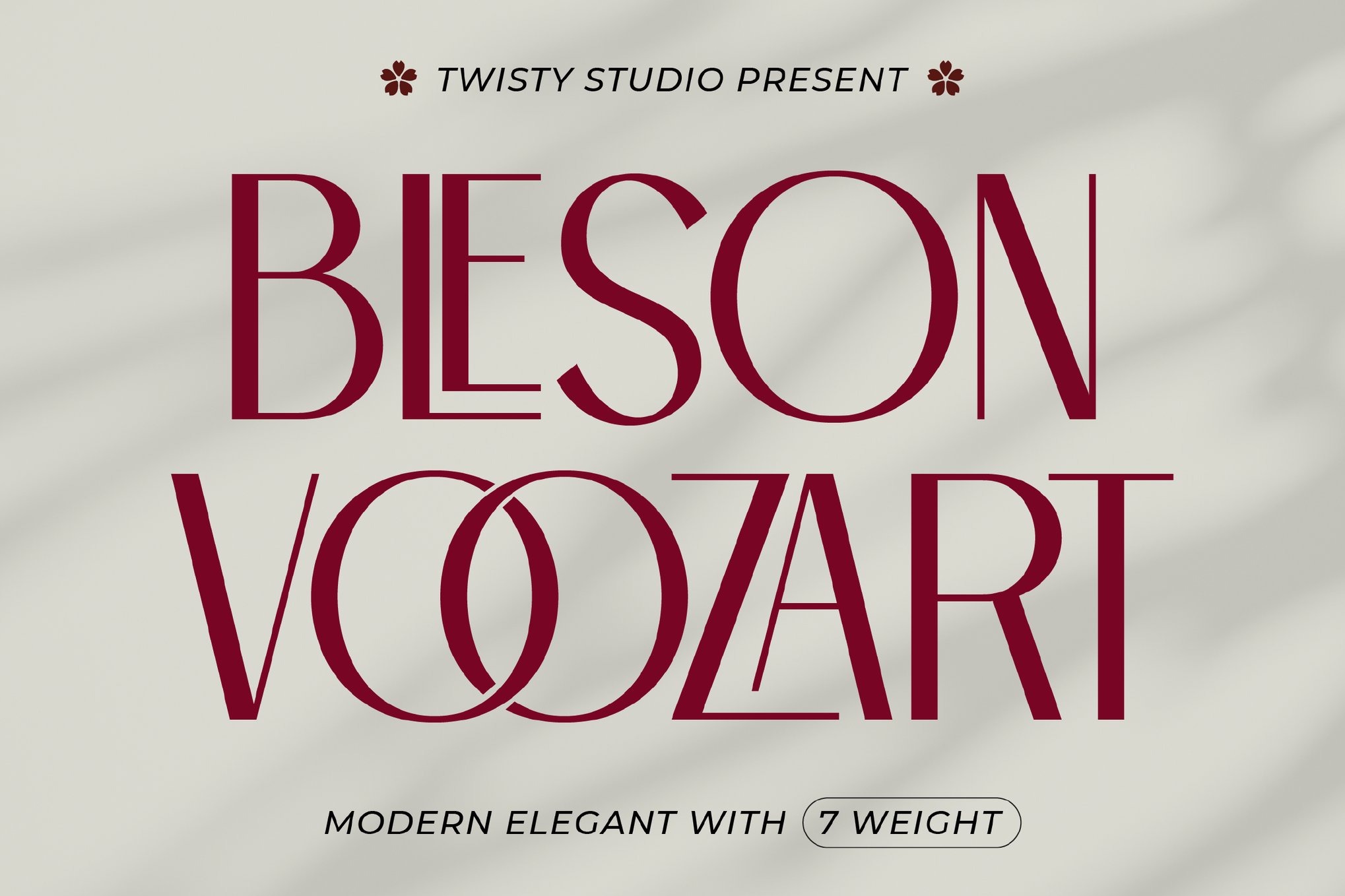
Bleson Voozart Font Family
Bleson Voozart Font Family is a clean and thoughtfully built typeface that works seamlessly for both professional branding and everyday creative uses. Bleson Voozart is a modern elegant sans family font designed to bring sophistication, versatility, and timeless style into every creative project. Featuring refined letterforms, balanced proportions, and clean contemporary lines, Bleson Voozart offers a premium typographic experience that feels both minimal and luxurious. Carefully crafted across multiple weights, this font family provides the flexibility to create cohesive designs while maintaining a polished and professional appearance.
Features: Uppercase & Lowercase Alternates & Ligatures Numerals & Punctuation Multilingual Support
Who Should Use Bleson Voozart? Bleson Voozart is perfect for graphic designers, branding agencies, publishers, fashion brands, creative studios, startups, and entrepreneurs looking for a sophisticated sans serif family with exceptional versatility. Whether you’re developing a luxury brand, designing editorial layouts, or creating modern digital experiences, Bleson Voozart delivers timeless elegance across every project.
Suitable For: Luxury branding and visual identity Fashion and beauty campaigns Jewelry branding identity Editorial and magazine layouts Website and UI/UX design Premium product packaging Logo and wordmark design Marketing and advertising materials Modern elegant typography